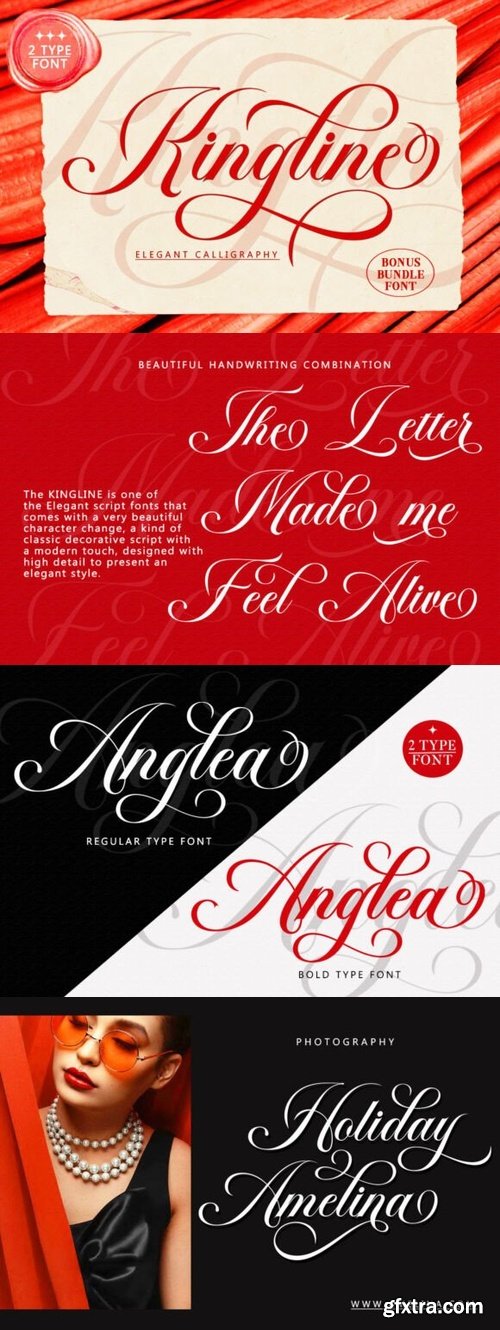
- Kingline Script Font is an elegant script font featuring a beautiful variety of characters. This font combines a Luxurious, classic style with a modern touch, designed with great attention to detail for an elegant look.
- This font is visually appealing, clean, luxurious, feminine, and easy to read, thanks to its luxurious letter connections. Its classic style is perfect for a variety of formal uses, including invitations, labels, restaurant menus, logos, fashion, makeup, stationery, novels, magazines, books, greeting and wedding cards, packaging, and all types of advertising.